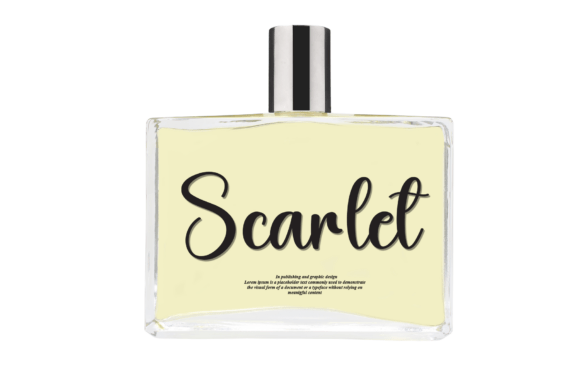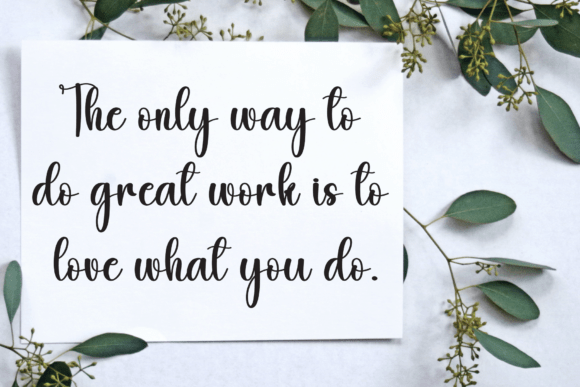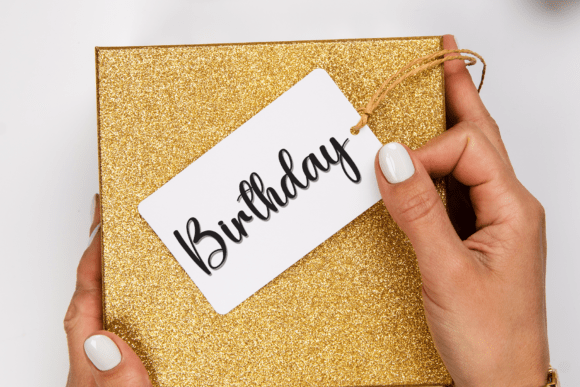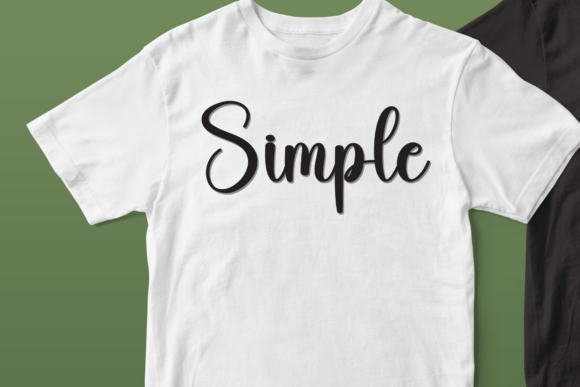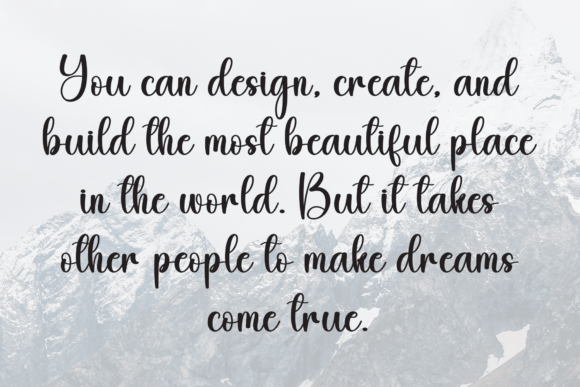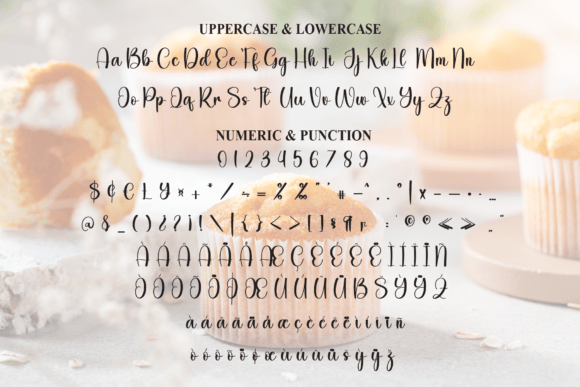
Introduction to Cupcake Butter Font
Discover the majestic radiance of a hand-drawn display font that epitomizes elegance, charm, and an edgy fashion sensibility.
This bold and adventurous typography adds a jolt of joy and whimsy to wedding invitations, heartfelt messages, or any design seeking a touch of warmth and happiness Enrich your design aesthetic with charismatic vitality using this captivating, artisan-crafted font that perfectly blends sophistication and friendliness, offering an unparalleled lettering encounter.
Key Features of Cupcake Butter Font